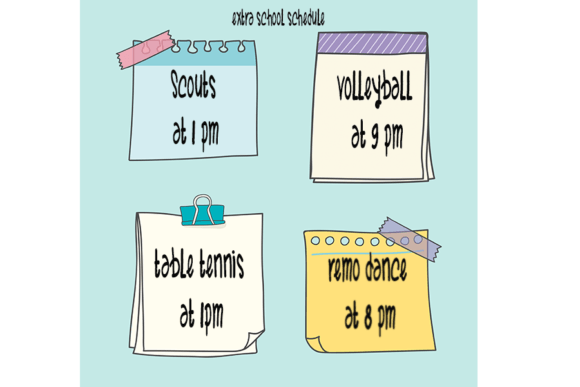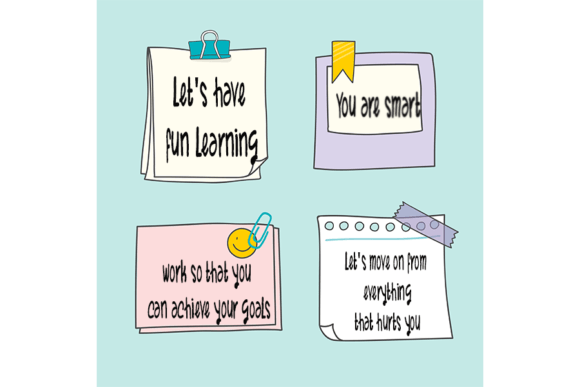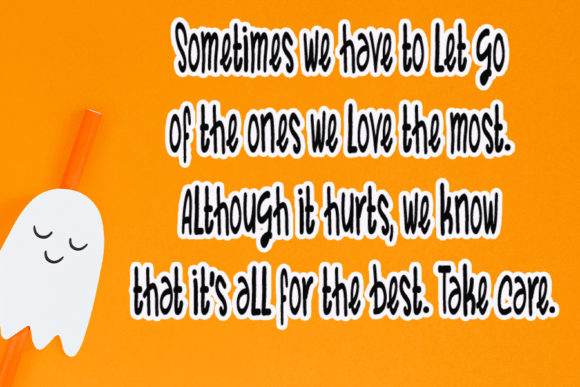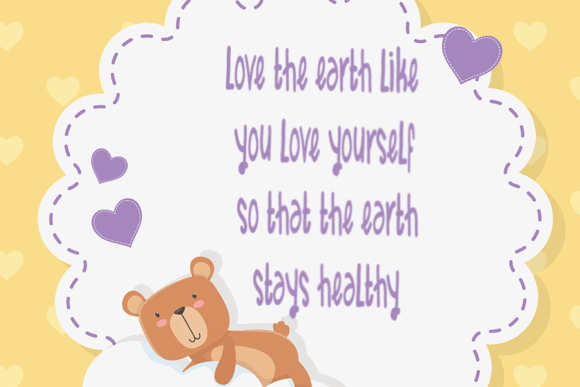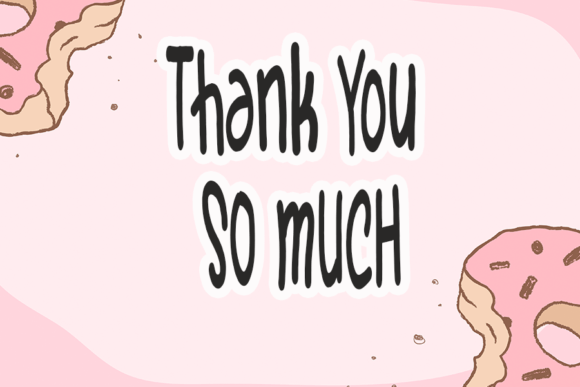
The Birth of a Design Icon: Baby Sister Font
Have you ever been working on a design project, pouring your heart and soul into it, only to feel like something’s missing? That’s where the magic of typography comes in. A well-chosen font can elevate your design from meh to mesmerizing in an instant. And that’s exactly what the Baby Sister Font does – it brings your creative ideas to life with its playful, handwritten charm.
Baby Sister Font is a versatile and simple handwritten font that’s perfect for a wide range of designs. From whimsical illustrations to elegant wedding invitations, this font is sure to add a touch of warmth and personality to your work. Whether you’re a seasoned designer or just starting out, the Baby Sister Font is a valuable addition to your toolkit. Its adaptability and charm make it a go-to choice for designers looking to add a unique touch to their projects.
Baby Sister Font Key Features
- Character Set: The font includes a wide range of characters, including Latin, Cyrillic, and Greek alphabets, as well as punctuation marks and symbols.
- Font Size: Baby Sister Font is designed to be highly legible at various font sizes, making it suitable for both body text and headings.
- Unique Characteristics: The font features a distinctive, hand-drawn feel with subtle irregularities and imperfections that give it a charming, organic look.
Baby Sister Font Review
Overall, I have mixed feelings about the Baby Sister Font. While it has some lovely qualities, it also falls short in a few areas.
- Cute and playful feel: Baby Sister Font is perfect for projects that need a touch of whimsy and innocence.
- Unique letterforms: The font’s distinctive lettering is a standout feature that can add visual interest to designs.
- Good legibility: At larger font sizes, Baby Sister Font is clear and easy to read.
- Difficult to read at small sizes: The font’s delicate lines and small x-height make it challenging to read at font sizes below 12 points.
- Limited versatility: Baby Sister Font is best suited for feminine or child-related projects; it may not be the best choice for more formal or technical designs.
- May not be suitable for body text: Due to its playful nature and limited legibility at small sizes, Baby Sister Font may not be the best choice for body text or long blocks of text.
In conclusion, Baby Sister Font is a delightful choice for projects that require a touch of playfulness and innocence. However, it may not be the best option for more formal or technical designs, or for projects where readability at small sizes is crucial.
Tips for Getting the Most Out of Baby Sister Font
For best results, use Baby Sister Font in combination with pastel colors and whimsical illustrations. This font is ideal for children’s products, baby-related designs, and feminine branding.
Baby Sister Font is commonly used in:
– Children’s book covers and illustrations
– Baby product packaging and labels
– Feminine branding and marketing materials
– Whimsical wedding invitations and decor